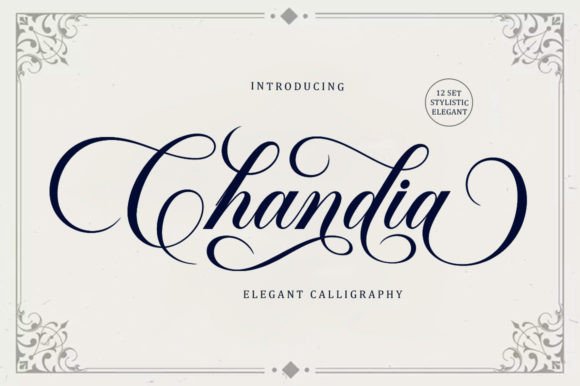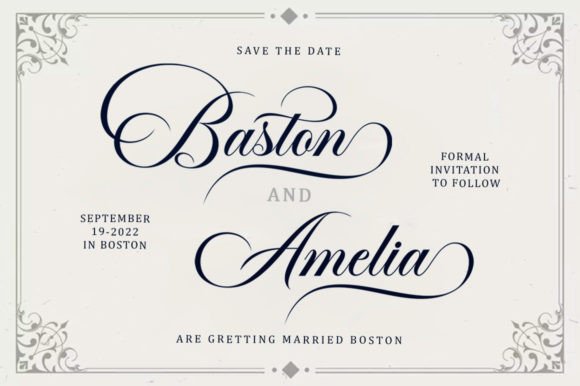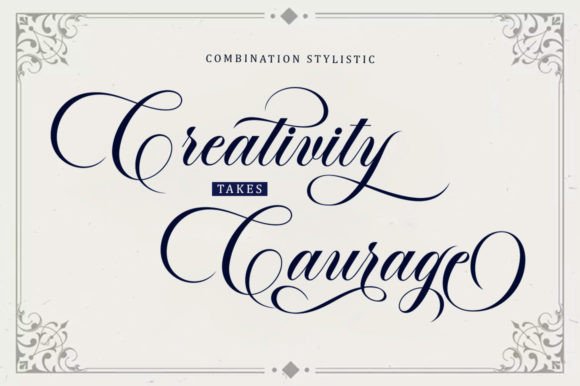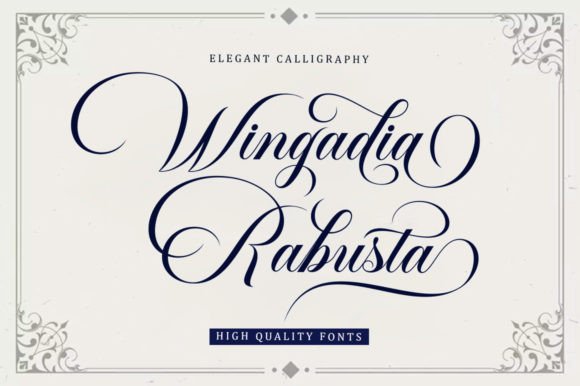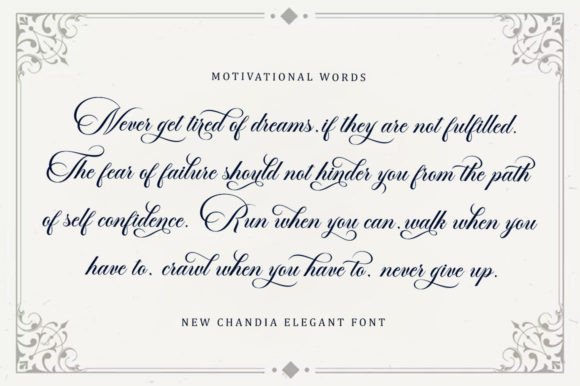
About Chandia Font
Chandia is an exquisite script font that radiates with elegance and sophistication. Crafted with meticulous attention to detail, this font showcases a level of precision and artistry that makes it a valuable addition to your font library. Regardless of the subject matter or design project at hand, Chandia possesses the unique ability to elevate and enhance any creation.
This font’s graceful and highly detailed letterforms are a testament to its quality and craftsmanship. Its intricate design is a testament to the care taken in its creation, and it reflects a dedication to delivering a font that exudes beauty and refinement.
Chandia’s versatility knows no bounds, making it a versatile choice for a wide range of creative applications. Whether you’re working on branding materials, invitations, editorial design, or any project that requires a touch of sophistication, Chandia rises to the occasion, adding a sense of class and grace that captivates the eye.
In summary, Chandia is not just a font; it’s a work of art that enhances your font library and enriches your creative projects. Its attention to detail and elegant design make it a valuable asset that can transform your creations into stunning works of visual beauty. Embrace Chandia and unlock the potential to create designs that exude grace and refinement.